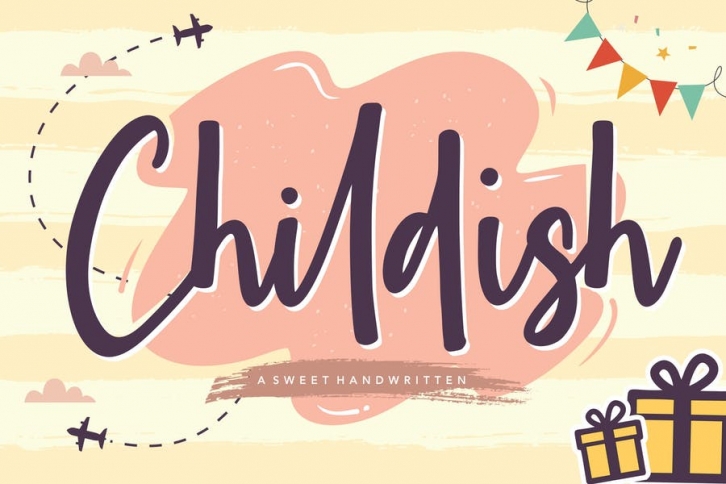
Childish YH - Modern Script Font Download
Proudly Present, Childish Font.
Childish is a Sweet Handwritten Font. This sweet font has nice smooth lines. Childish is perfect for product packaging, branding project, megazine, social media, wedding, or just used to express words above the background.